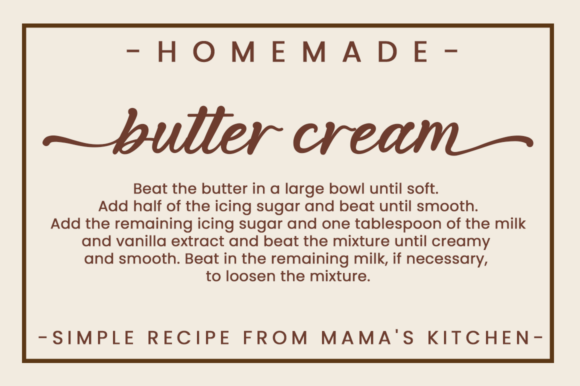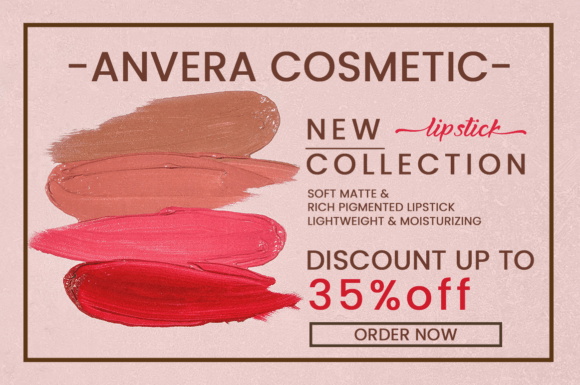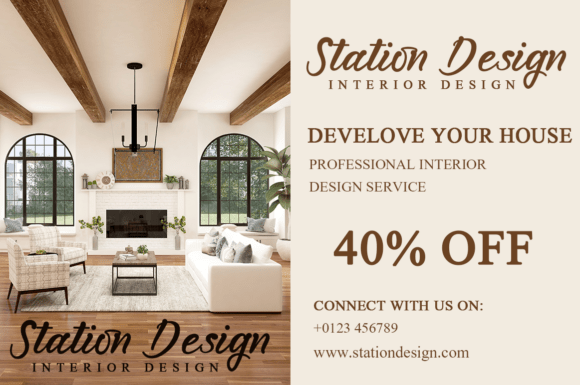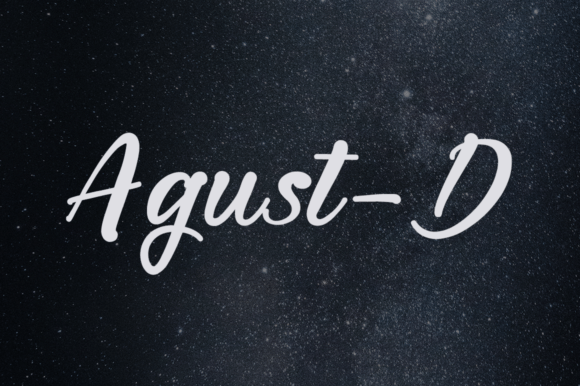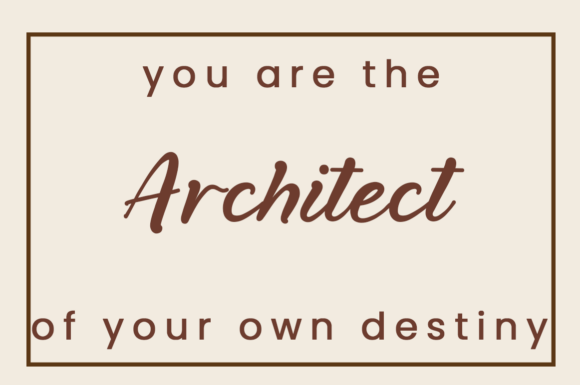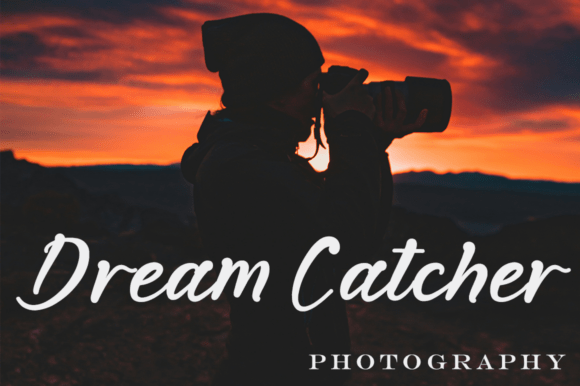
Discover the Sweet Charm of the Butter Cream Font
There’s something magical about designing a wedding invitation or a special greeting card for a loved one. The pressure to get it just right, to make it perfect, can be overwhelming. But what if I told you there’s a font that can help you achieve that perfect, elegant look with ease? Enter the beautiful Butter Cream Font, a handwritten script font that exudes refinement and sophistication.
This stunning font features delicate, flowing letter forms and intricate details that will transport your designs to a world of luxury and romance. Whether you’re creating a wedding invitation, a greeting card, or branding for a fashion or beauty brand, the Butter Cream Font is the perfect choice. Its versatility and PUA encoding make it a valuable asset for designers, allowing you to access all the glyphs and ligatures with ease.
Key Features of Butter Cream Font
- Unique Characteristics: The Butter Cream Font features a distinctive, hand-drawn style with subtle imperfections, giving it a warm and inviting feel.
- Language Support: The font includes support for a wide range of languages, including Latin, Cyrillic, and Greek scripts, making it suitable for multilingual designs.
- Kerning and Ligatures: The font includes advanced kerning and ligature pairs, ensuring smooth text rendering and a professional look.
Designer Review: Butter Cream Font
Overall, I think the Butter Cream Font is a charming and whimsical addition to any design project. ✨ The font’s soft, rounded edges and subtle curves give it a friendly and approachable feel that’s perfect for creating a warm and inviting atmosphere.
Here are some of the things that really stand out to me:
- ✨ The font’s consistency is great, with all the weights and styles working together seamlessly.
- ✨ The characters are well-proportioned and easy to read, even at small sizes.
- ✨ The font’s texture is subtle but effective, adding a touch of warmth and personality to your designs.
- ⚠️ The font may not be the best choice for formal or professional projects, as it can come across as a bit too playful or juvenile.
- ⚠️ Some of the weights and styles may not be as well-suited for certain typography tasks, such as creating clear headings or titles.
Overall, I think the Butter Cream Font is a great choice for designers looking to add a touch of whimsy and personality to their projects. While it may not be the most versatile font, it’s a great option for creating a warm and inviting atmosphere that’s perfect for brands, products, or services that want to stand out and be memorable.
Tips for Getting the Most Out of Butter Cream Font
Here are some tips for getting the most out of the Butter Cream font:
- Use it for creative projects such as invitations, greeting cards, and party decorations.
- Pair it with bold and bright colors to create a playful and eye-catching design.
- Experiment with different font sizes and styles to add visual interest to your design.
The Butter Cream font is commonly used for:
- Wedding invitations and decorations.
Alternatives to Butter Cream Font
Great Vibes is a modern, elegant script font that is perfect for creating a sophisticated and luxurious feel. It is ideal for use in branding, advertising, and editorial design where a touch of elegance is required. Great Vibes is more refined and polished than Butter Cream Font, making it suitable for high-end designs.
Carolyna Pro is a beautiful, handwritten font that is great for adding a personal touch to designs. It is perfect for use in invitations, greeting cards, and other social media graphics where a touch of whimsy is required. Carolyna Pro is more delicate and intricate than Butter Cream Font, making it suitable for designs that require a softer, more feminine feel.